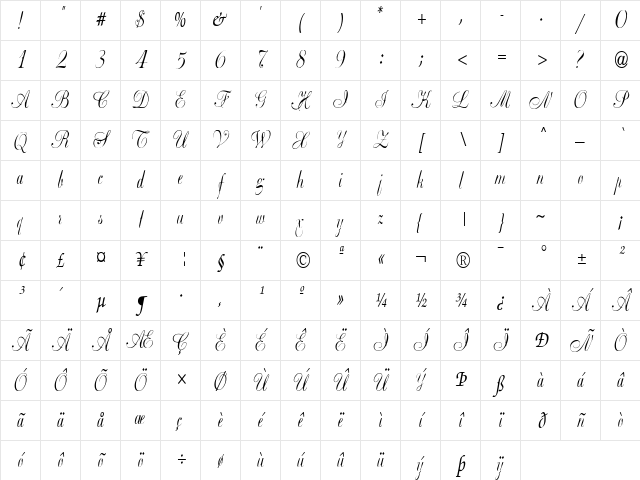
Basic Class A Condensed is a composed and adaptable typeface that performs quietly and consistently across a wide range of design contexts. Its narrow stance lets it pack a punch even in space-constrained designs.
Pro Tip: Use Basic Class A Condensed in both headline and body roles to test its range before committing to a single application.